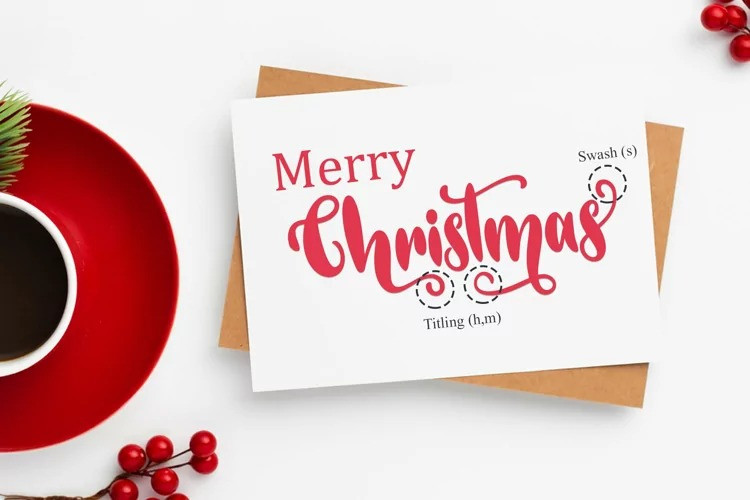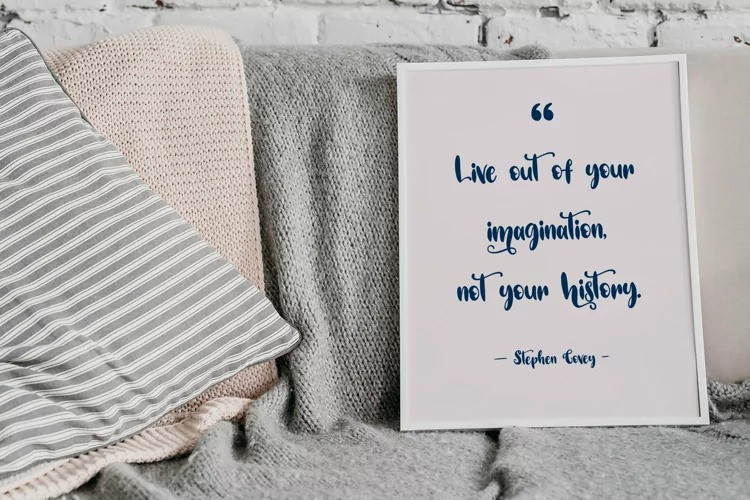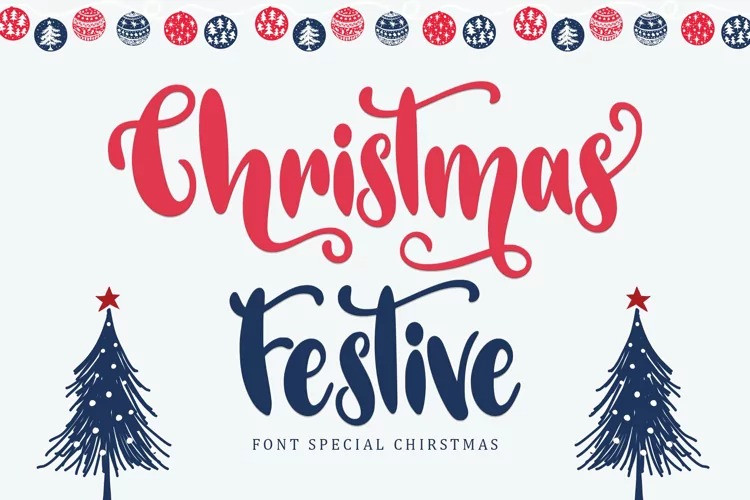
Christmas Festive Font
Christmas Festive Script Font is a sweet and adorable handwritten script font. No matter the topic, this font will be an incredible asset to your fonts’ library, as it has the potential to elevate any creation.